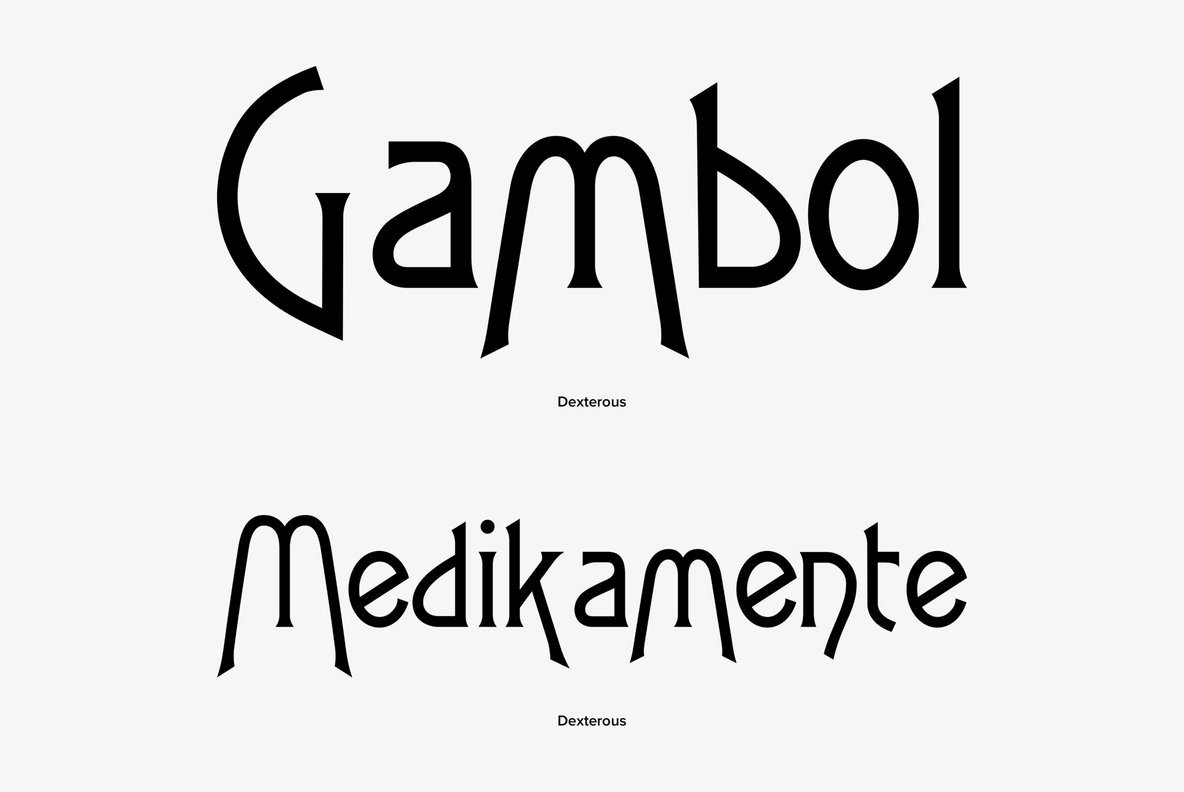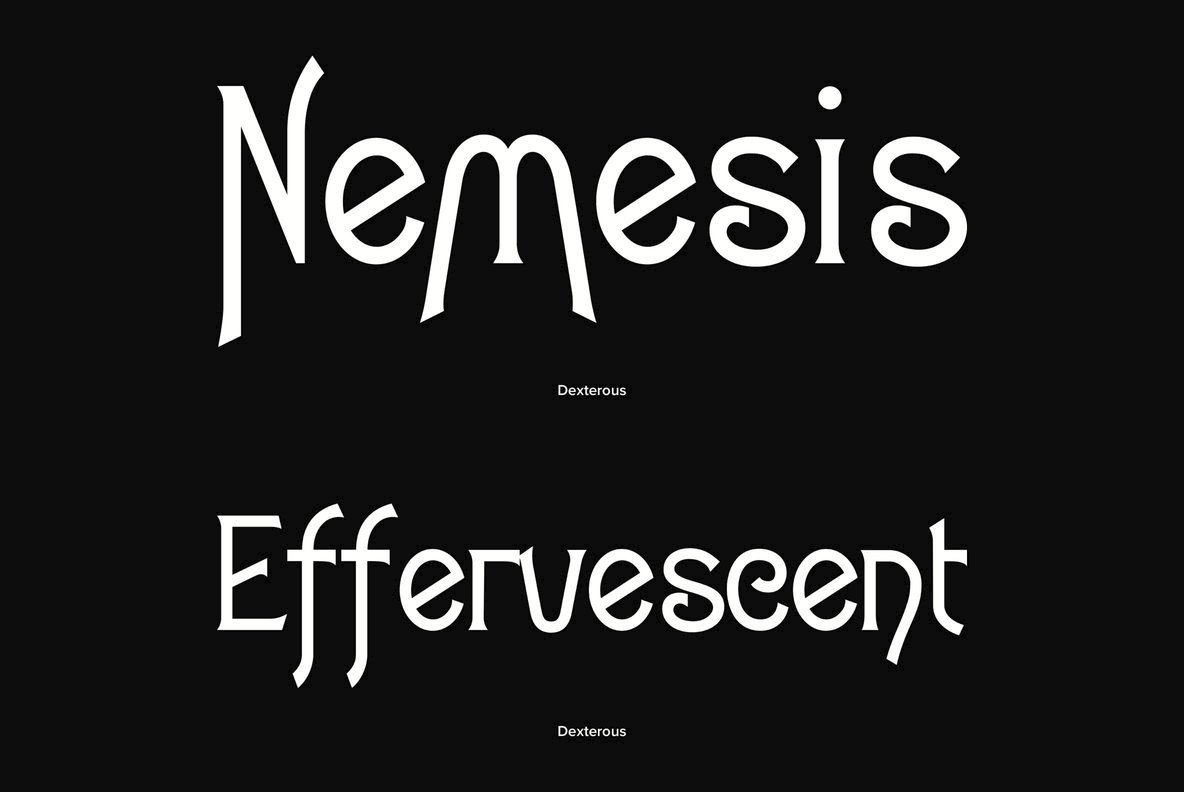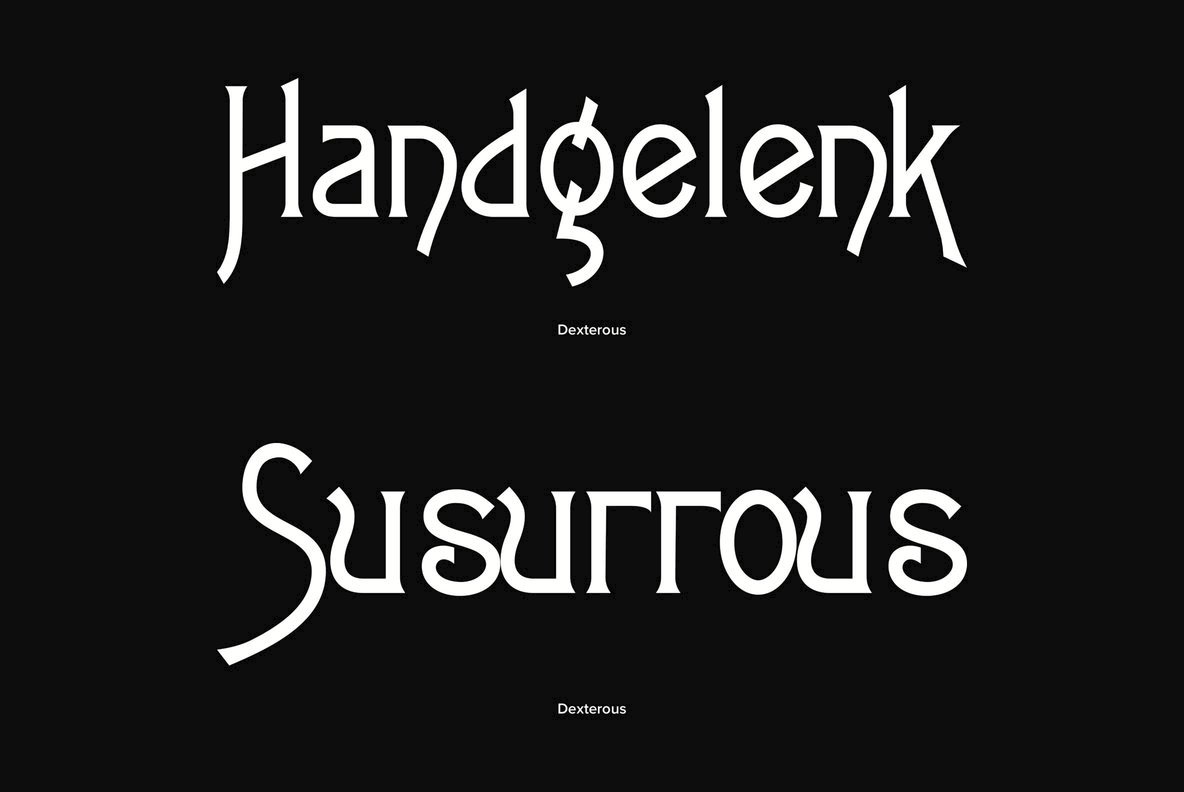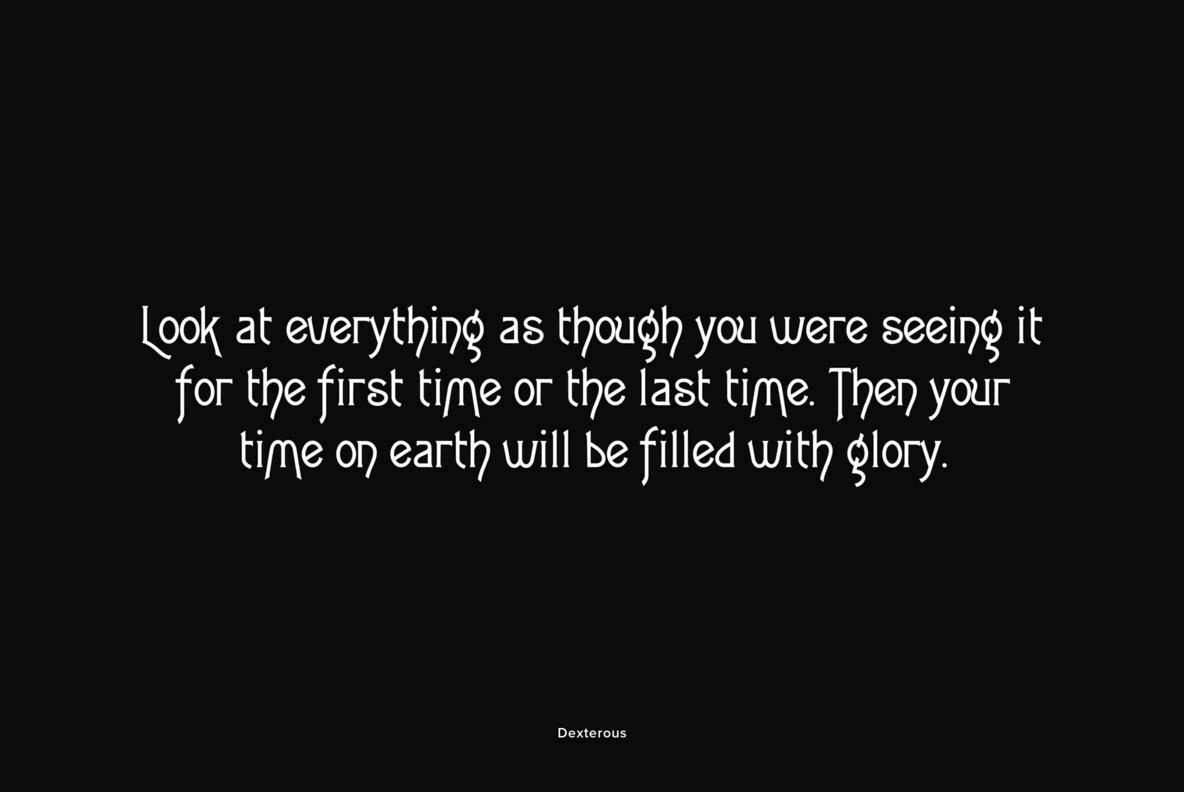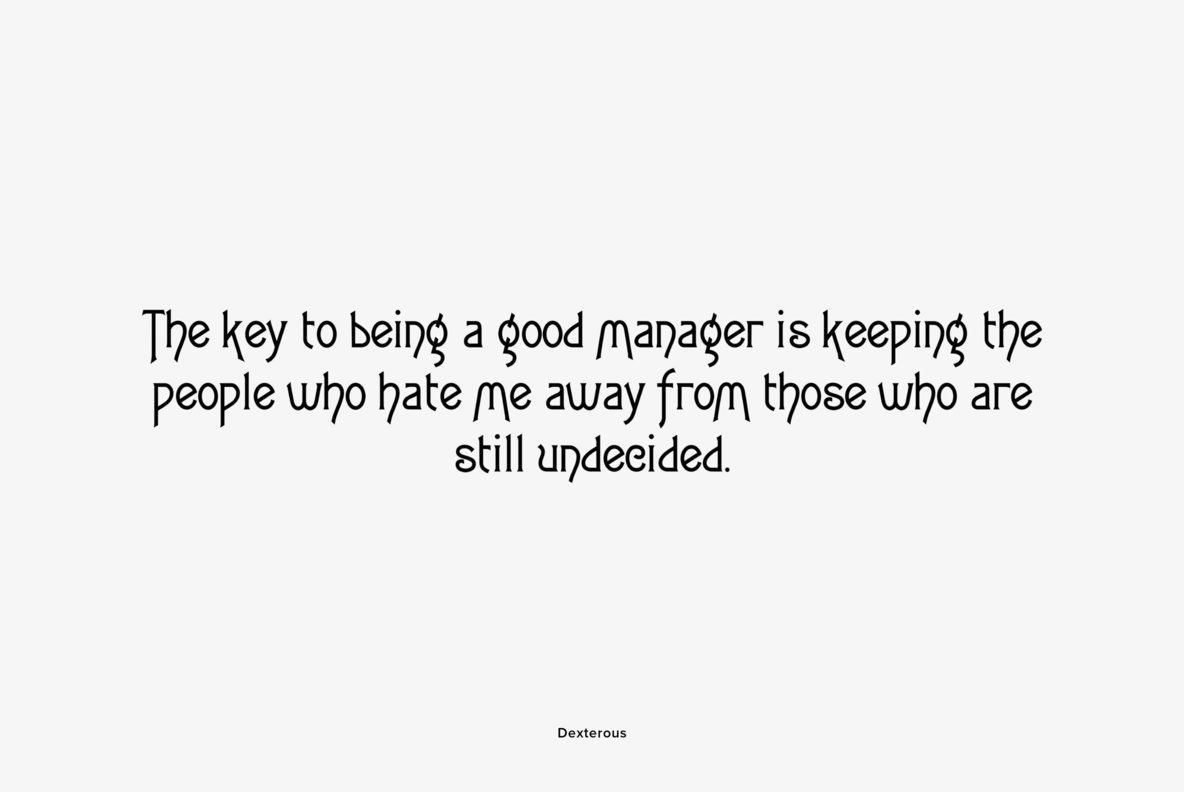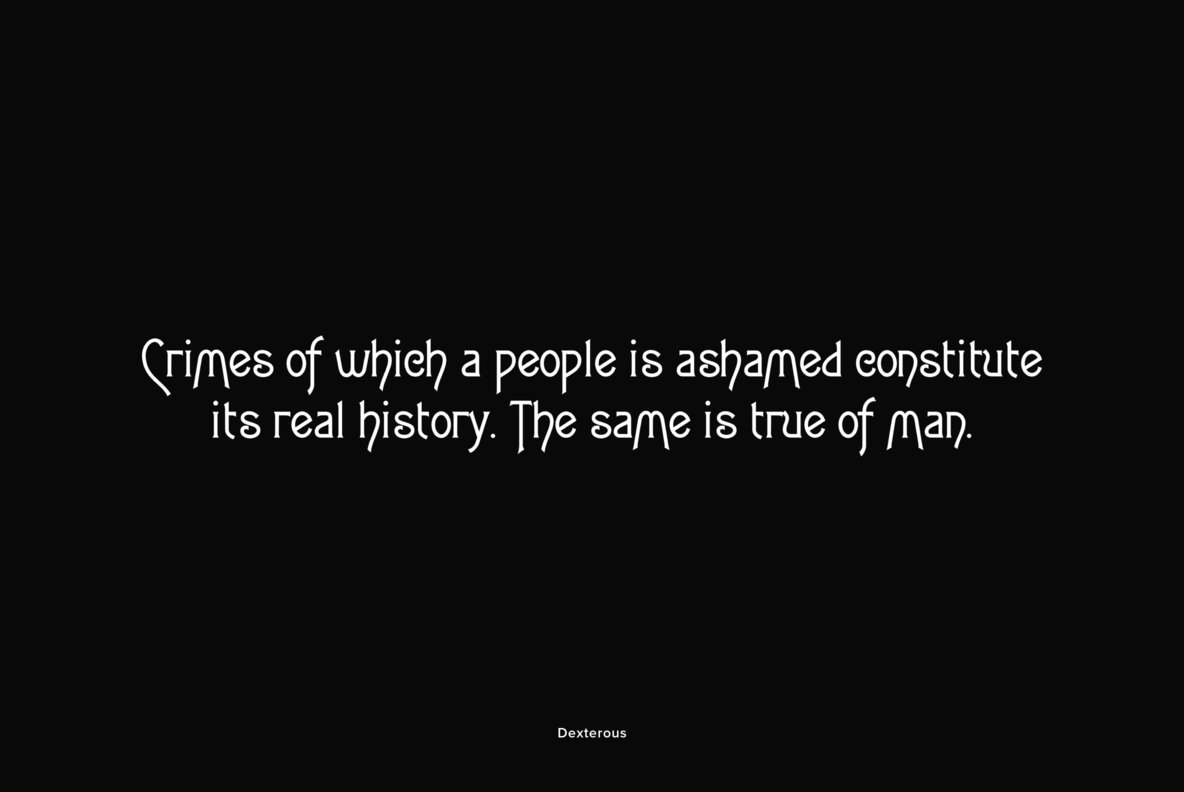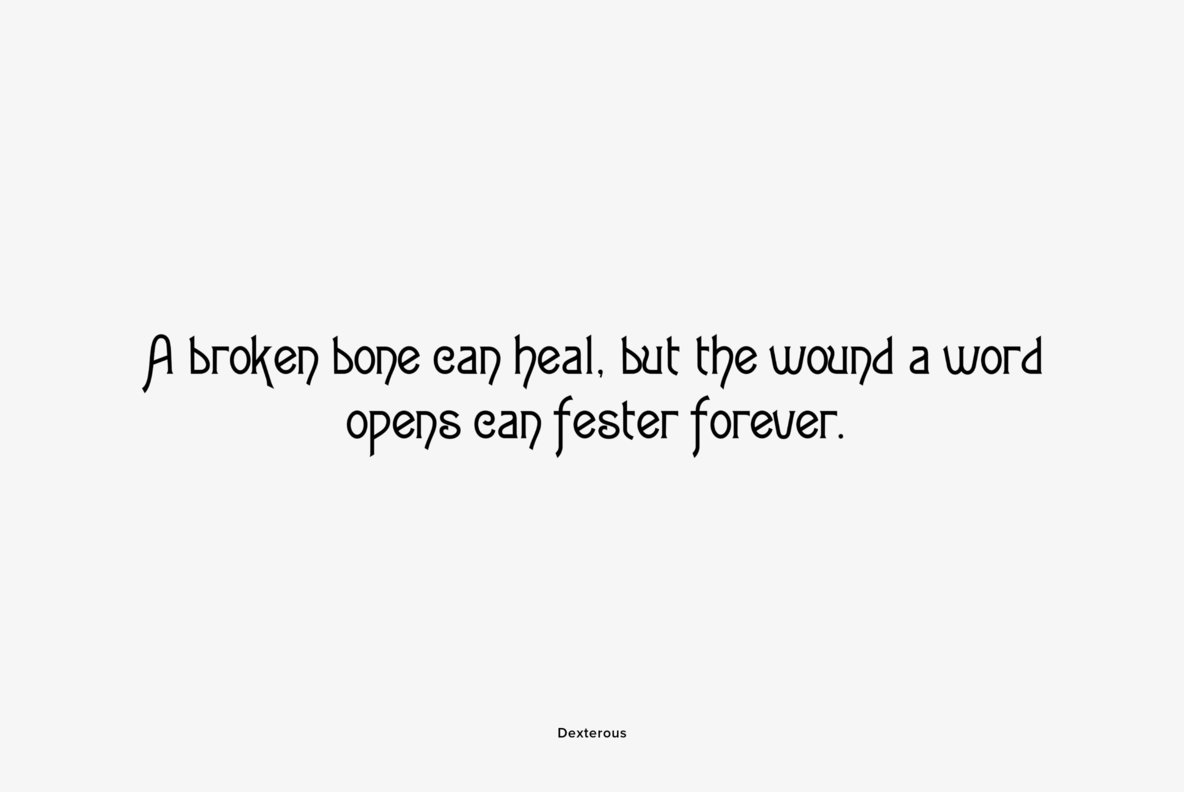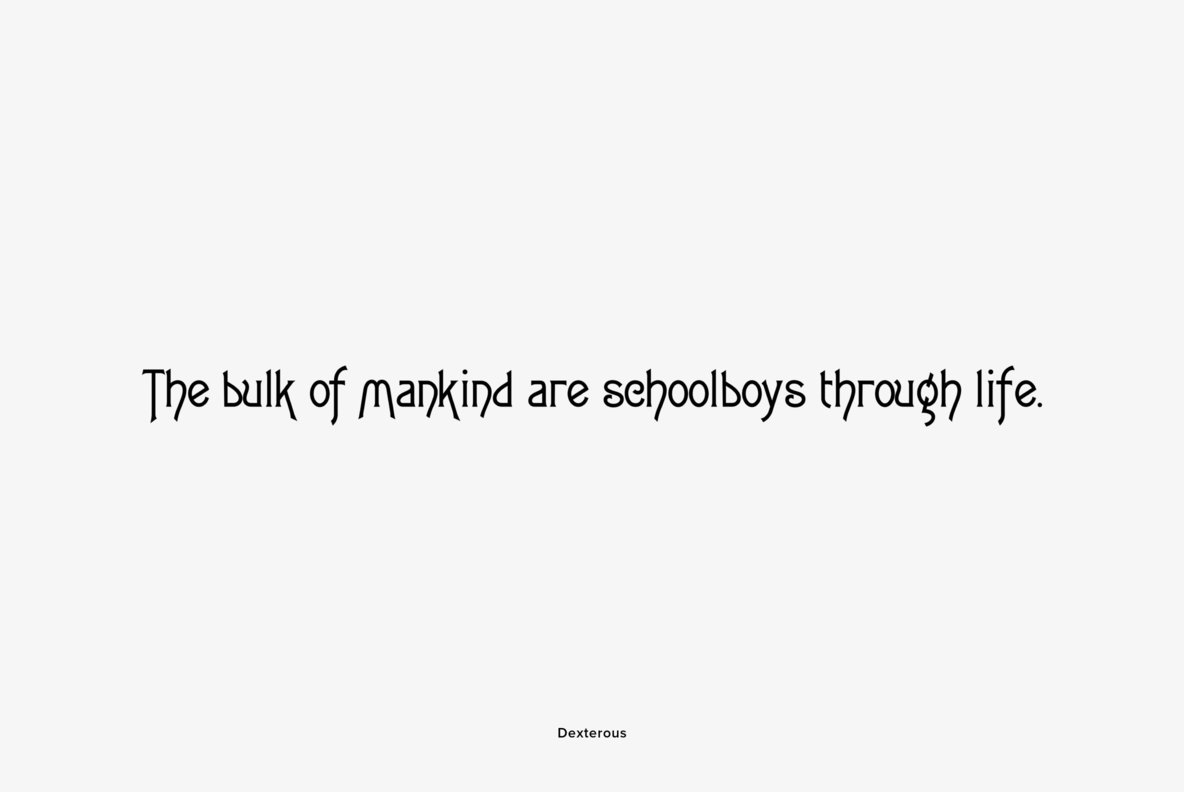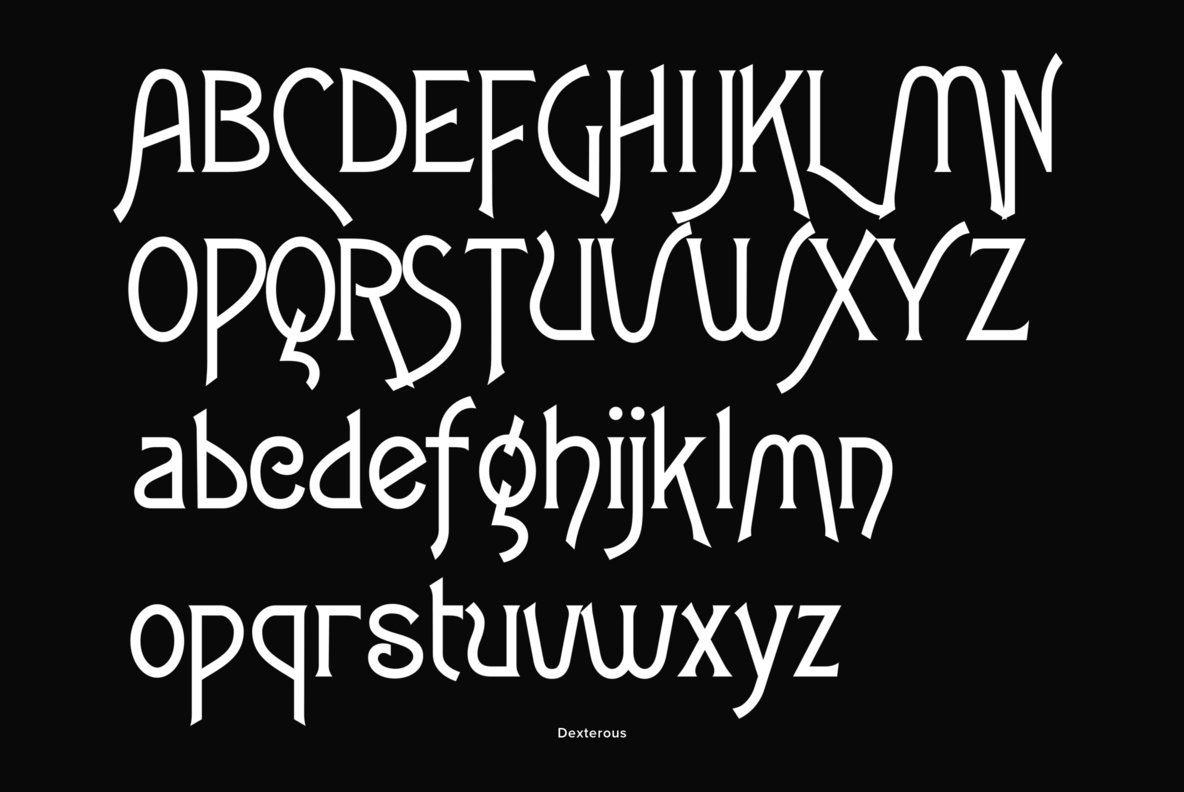
Dexterous Font
Dexterous
Dexterous is an interpretation of an antique typeface.
The font includes upper and lowercase alphabets with alternate “E F L M S T” characters and alternate “c e m s” characters, numbers, punctuation, accented characters, symbols, and miscellaneous characters.